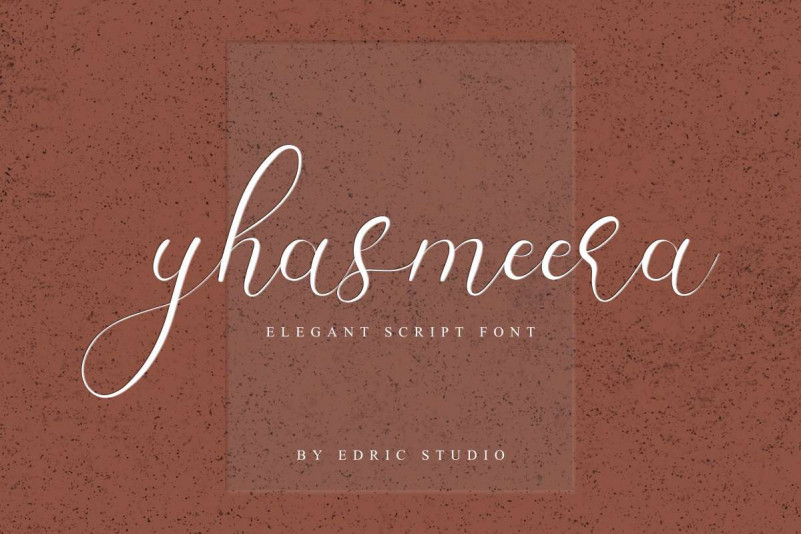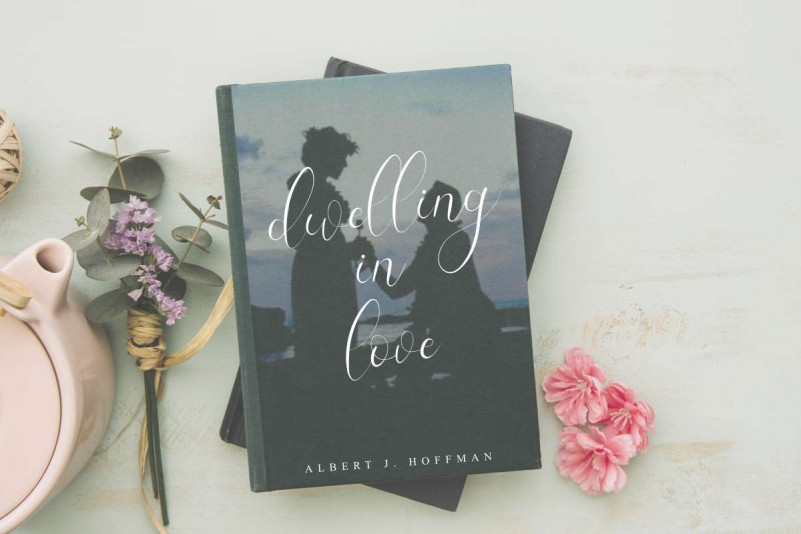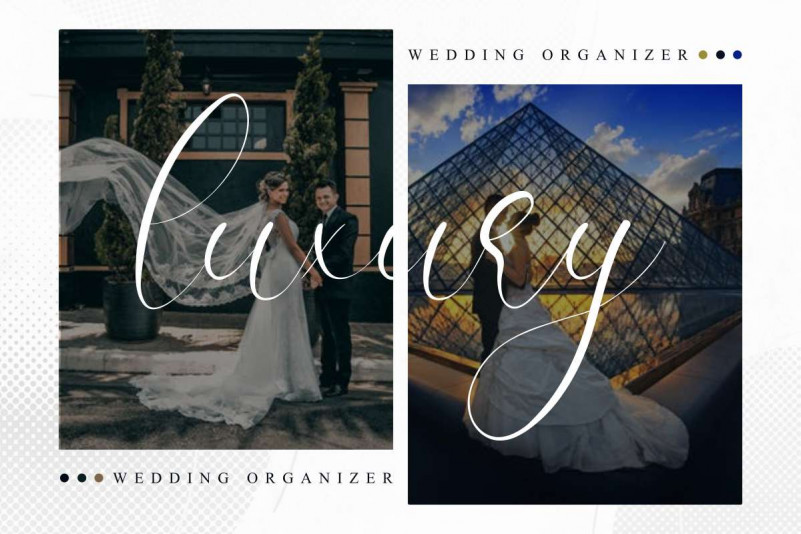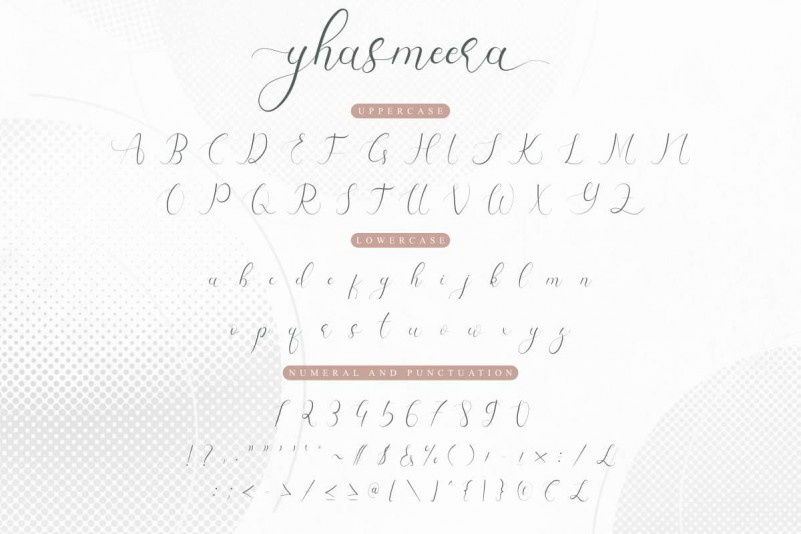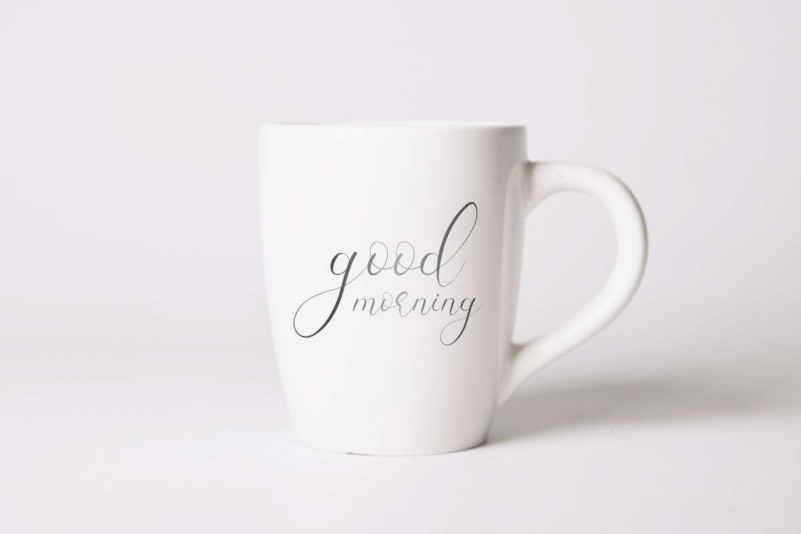
Yhasmeera Calligraphy Font
Yhasmeera Calligraphy Font . This new font is a calligraphy font script. This font was made perfectly in our studio in Bandung-Indonesia. It was made by our Typeface designer : Widi and Suci.
This font has an exclusive beautiful calligraphy style. The characters of this font is sophisticated, feminine, glamourous, luxury, elegant, vintage and natural look. With these styles you can explore many industries and designs categories : Wedding, Advertising, Display, Music, Cafe, florist, gardening, makeup, designer etc . With an extendend licenses you can create anything you want : Branding (logo, stationery, bizcard, head letter, folder etc), promotions stuff (flyer, brochure, postcard etc), Digital marketing (Banner, Ads, cover etc), Personal Invitation, Magazine, Website etc.